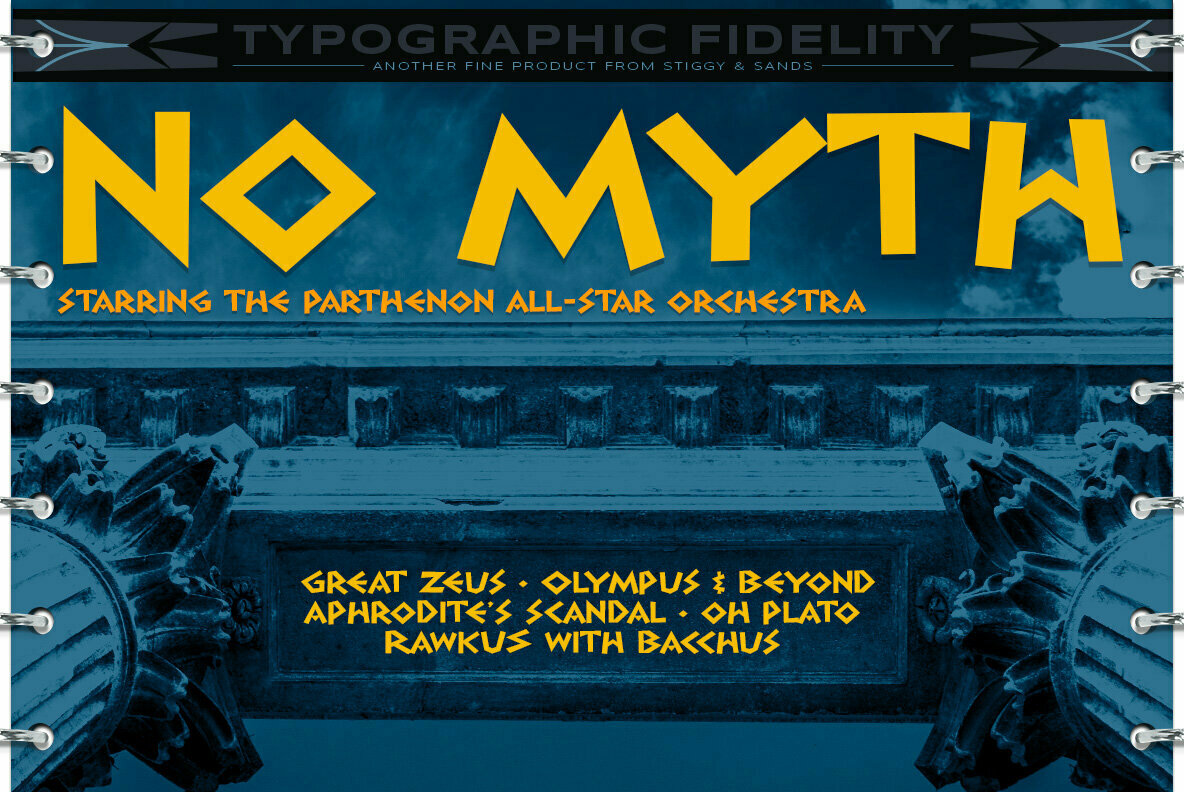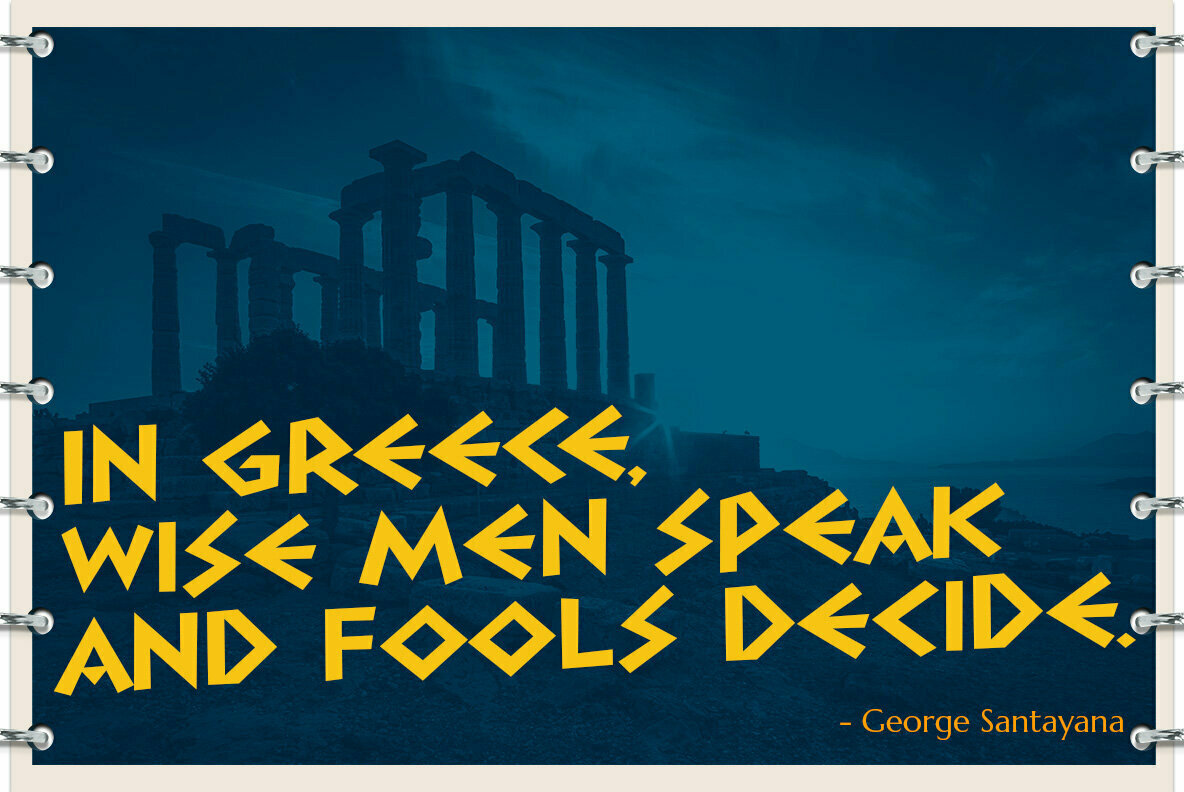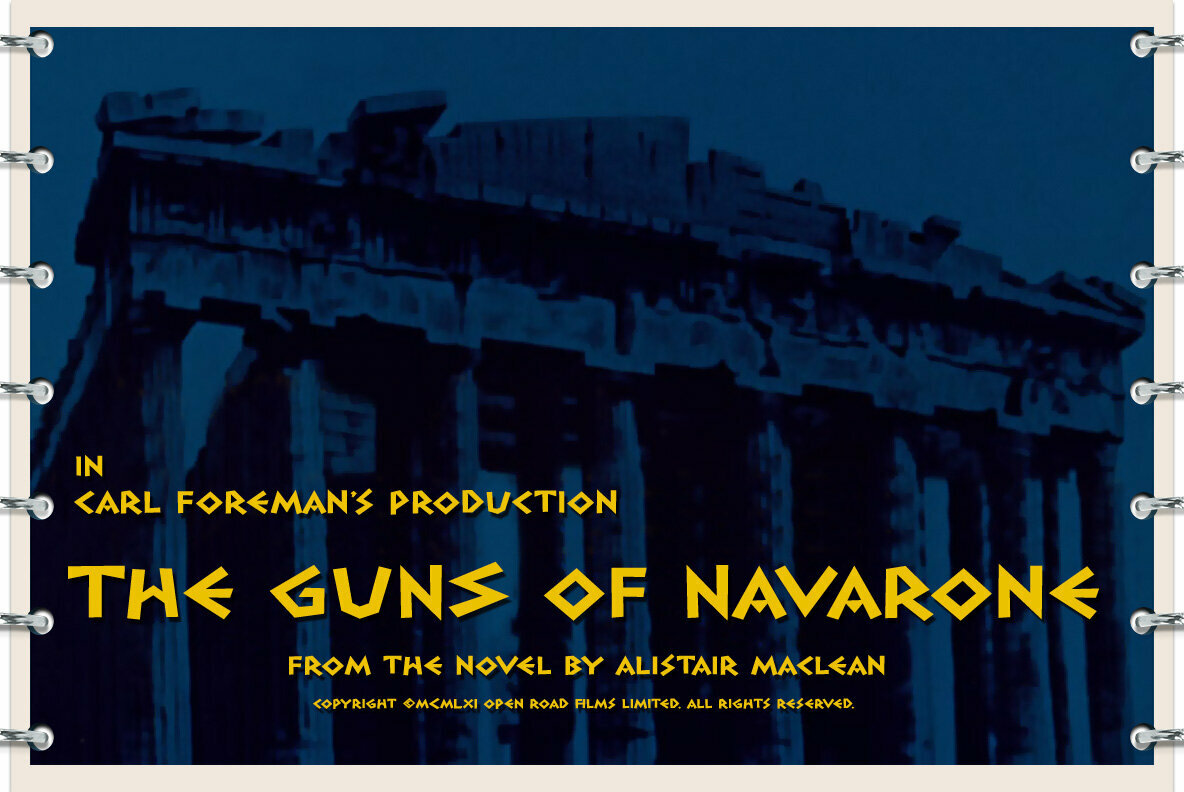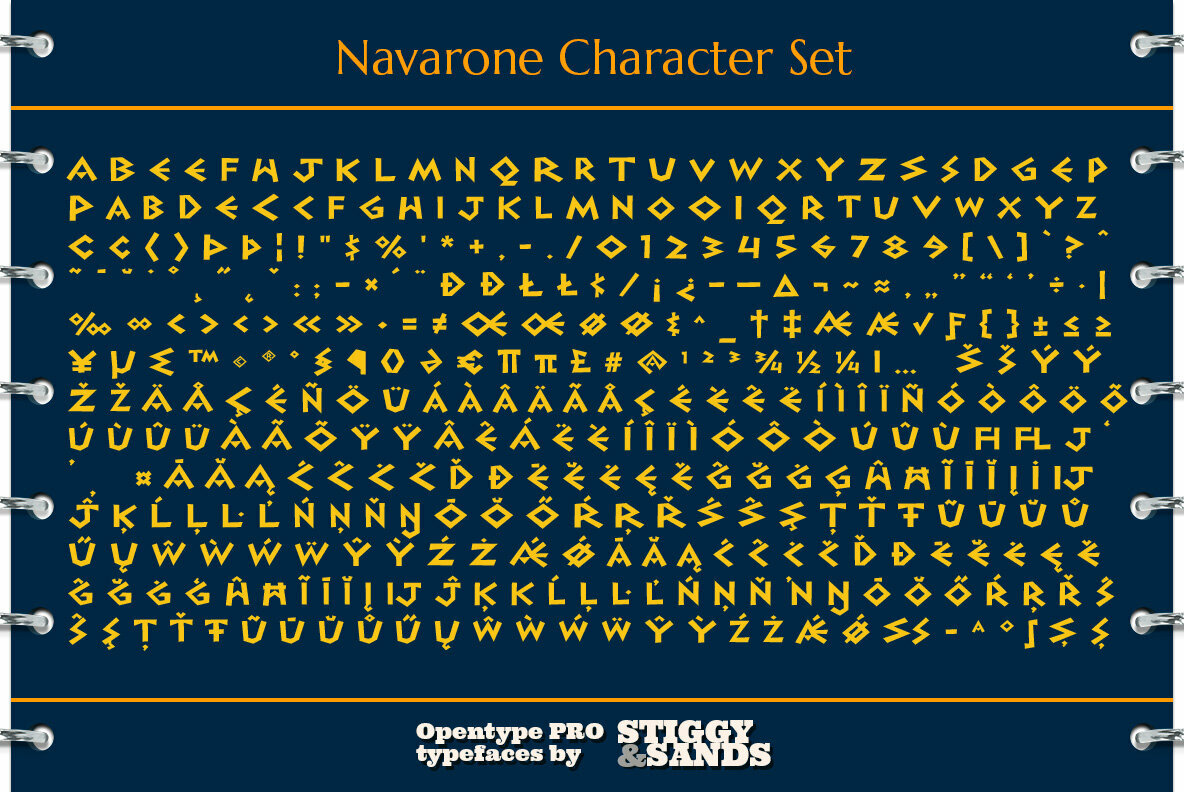
Navarone Font
Navarone Regular
A Roman Stylized Font of War.
Navarone is a display sans typestyle that was inspired by the movie titling sequence from the 1962 movie "The Guns of Navarone". It's an all capitals typeface that has alternate caps in the lowercase slots to convey all of the roman stylized lettering of the original inspiration.
Navarone comes with features for customisation options:
- An all capitals typeface with alternate capitals in the lowercase slots
- A Basic Ligatures feature that swaps out FI and FL ligatures.
Approx. 386 Character Glyph Set: Navarone comes with a glyphset that includes standard & punctuation, international language support, and basic ligatures.